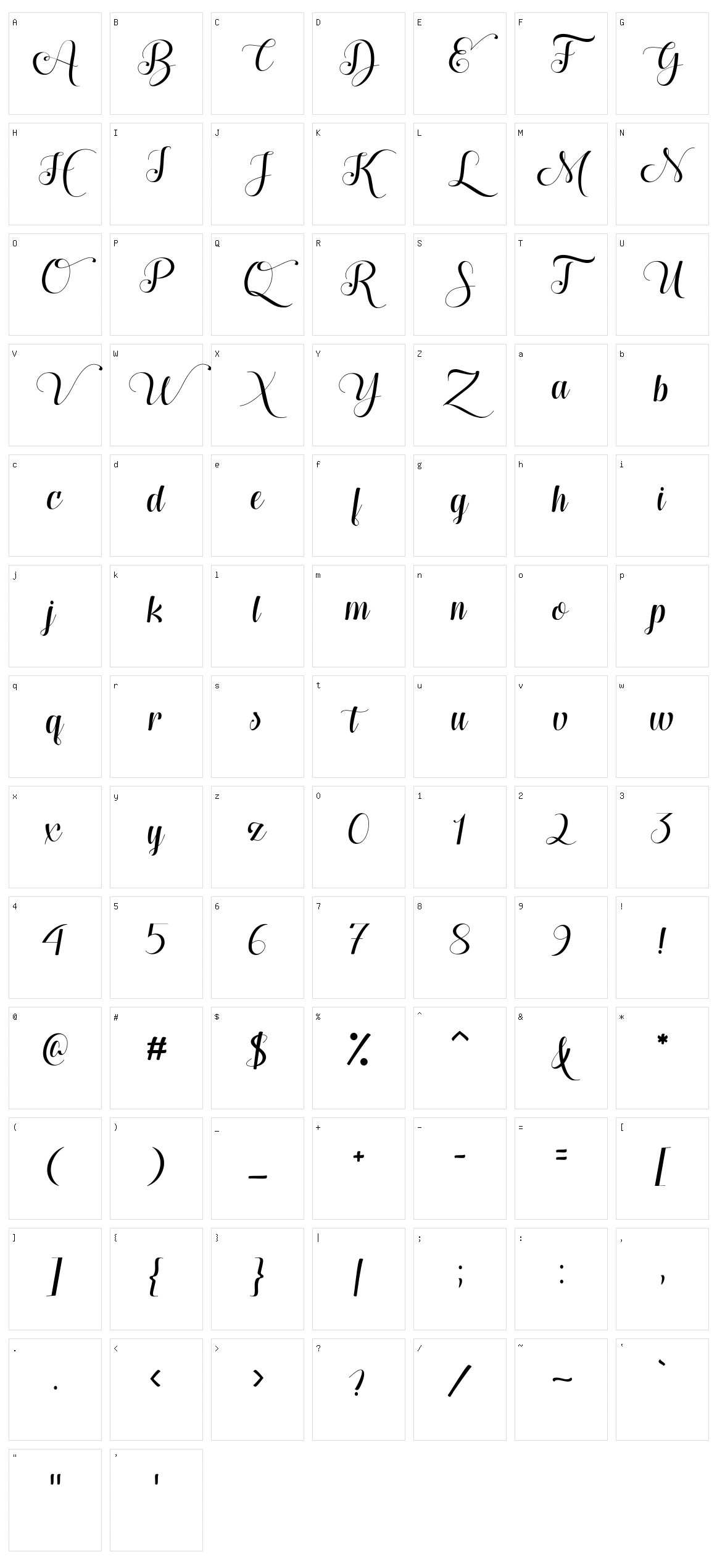
The free font Hugs and Kisses xoxo is carefully designed by Misti's Fonts, showcasing a thoughtful balance of creativity and usability and falls under the Script font style. When you download the ZIP file, it contains only 38.18 KB of font files, making it lightweight and quick to download. Please review the license details below to understand permitted usage and distribution rights. If license information is not available, we recommend using this font for personal projects only or contacting the author directly for commercial usage permissions.